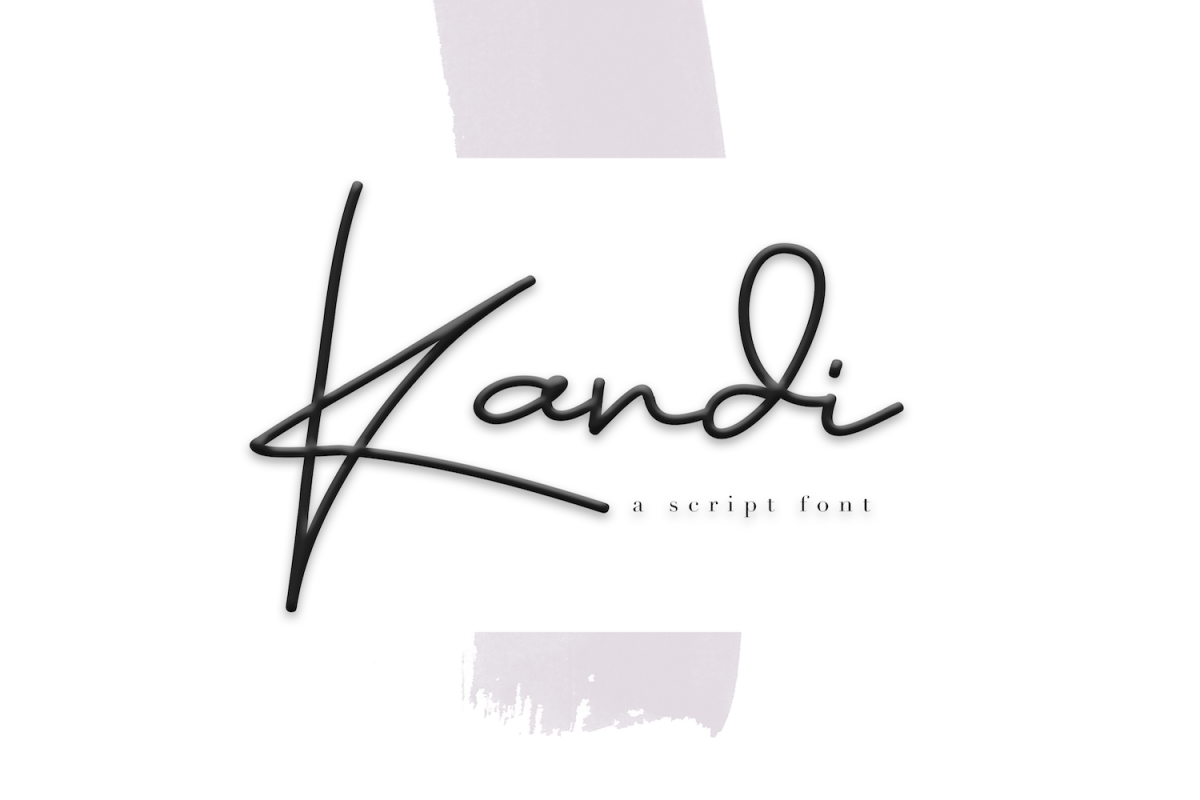
Kandi - A Handwritten Signature Font
Kandi
Kandi is a chic handwritten font.
It looks great when used for logos & branding!
This font is perfect for quotes, headings, designs, logos, invitations and more!
This font does not include accent characters.